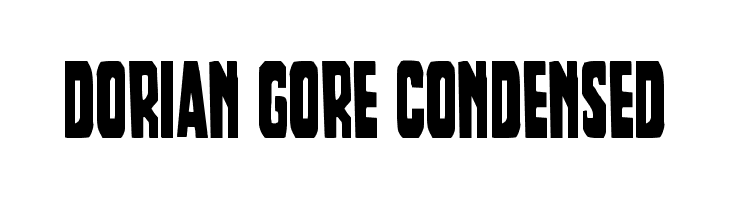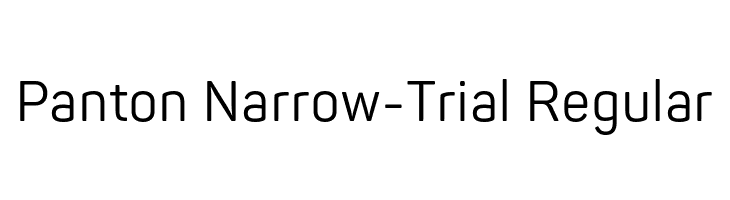
A modern, geometric, and condensed font with consistent stroke weight.
A condensed, elongated font with thin strokes and minimal spacing.
A sharp, angular, and condensed font with a modern blackletter influence.
A modern, condensed sans-serif font with a clean and professional look.
A modern, bold, narrow sans-serif font with rounded edges.
A modern, narrow sans-serif font with a clean and professional look.
A bold, modern font with a narrow design, perfect for impactful headlines.
A bold, geometric font with a modern and striking design.
A bold, condensed font with blocky, impactful letters.
A bold, condensed geometric font with strong, blocky characters.